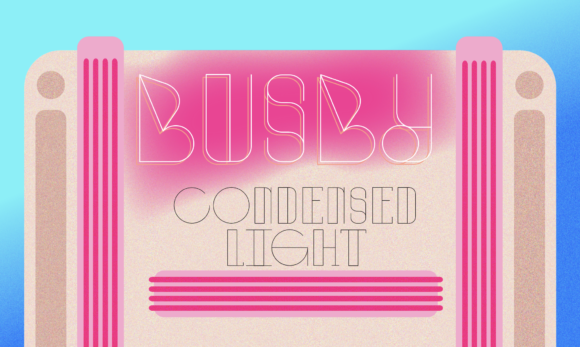
The Ultimate Guide to Busby Condensed Light Font: Elevate Your Designs with a Retro Twist
Ah, the thrill of working on a design project, only to hit a roadblock when it comes to finding the perfect font. I recall a particularly frustrating experience where I was tasked with creating a bold, eye-catching logo for a client’s t-shirt line. The catch? It had to be retro-cool, yet effortlessly modern. After scouring the internet for hours, I stumbled upon the Busby font – and my design woes disappeared instantly! In this article, we’ll dive into the world of Busby Condensed Light Font, exploring its unique features, practical applications, and some fantastic alternatives.
An Honest Review of Busby Condensed Light Font
So, what makes Busby Condensed Light Font so special? Let’s break it down:
- ✨ Retro charm: Busby boasts a uniquely designed, retro aesthetic that’s perfect for creating stand-out designs.
- ✅ Versatility: This font is suitable for a wide range of projects, including t-shirts, sportswear, logos, advertisements, clothing, and more.
- 💡 Effortless creativity: Busby’s distinctive style effortlessly elevates any design project, making it a go-to choice for creatives.
However, no font is perfect. Here are a few minor quirks to consider:
- 🤔 Limited use cases for body text: Due to its condensed and light nature, Busby might not be the best choice for lengthy body text.
- ⚠️ Glyph limitations: Some users have reported limited glyph options, which might restrict customization.
A Practical Guide to Using Busby Condensed Light Font
The Backstory Behind Busby Condensed Light Font
Legend has it that Busby was inspired by the iconic signage of 1950s America. The font’s designer aimed to capture the essence of retro charm, while infusing it with a modern twist. The result is a font that’s both nostalgic and fresh – perfect for creatives looking to add a unique touch to their designs.
| Font Name | Busby Condensed Light Font |
| Author | fontkawaiico |
| What is the best use case for Busby Condensed Light Font? | Busby is ideal for display designs, such as logos, t-shirts, sportswear, and advertisements. |
| Can I use Busby for body text? | While possible, Busby’s condensed and light nature makes it less suitable for lengthy body text. Consider using a more traditional font for better readability. |